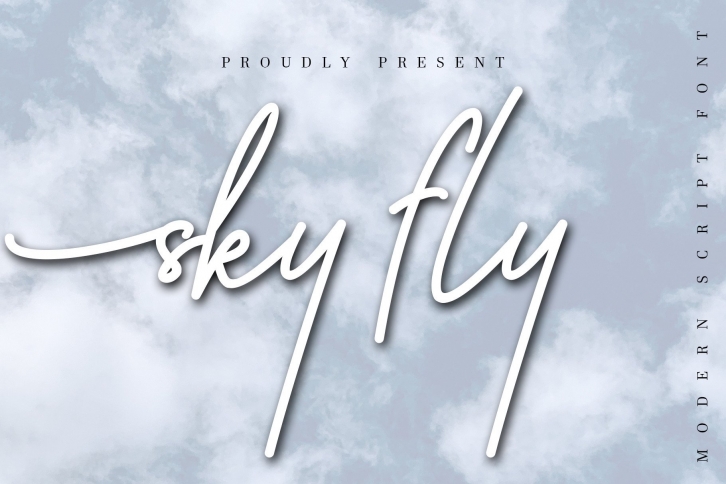
Sky Fly Script is a dazzling and timeless handwritten font. It is the best choice for creating eye catching logos, branding and quotes. This font is PUA encoded which means you can access all of the glyphs and swashes with ease!